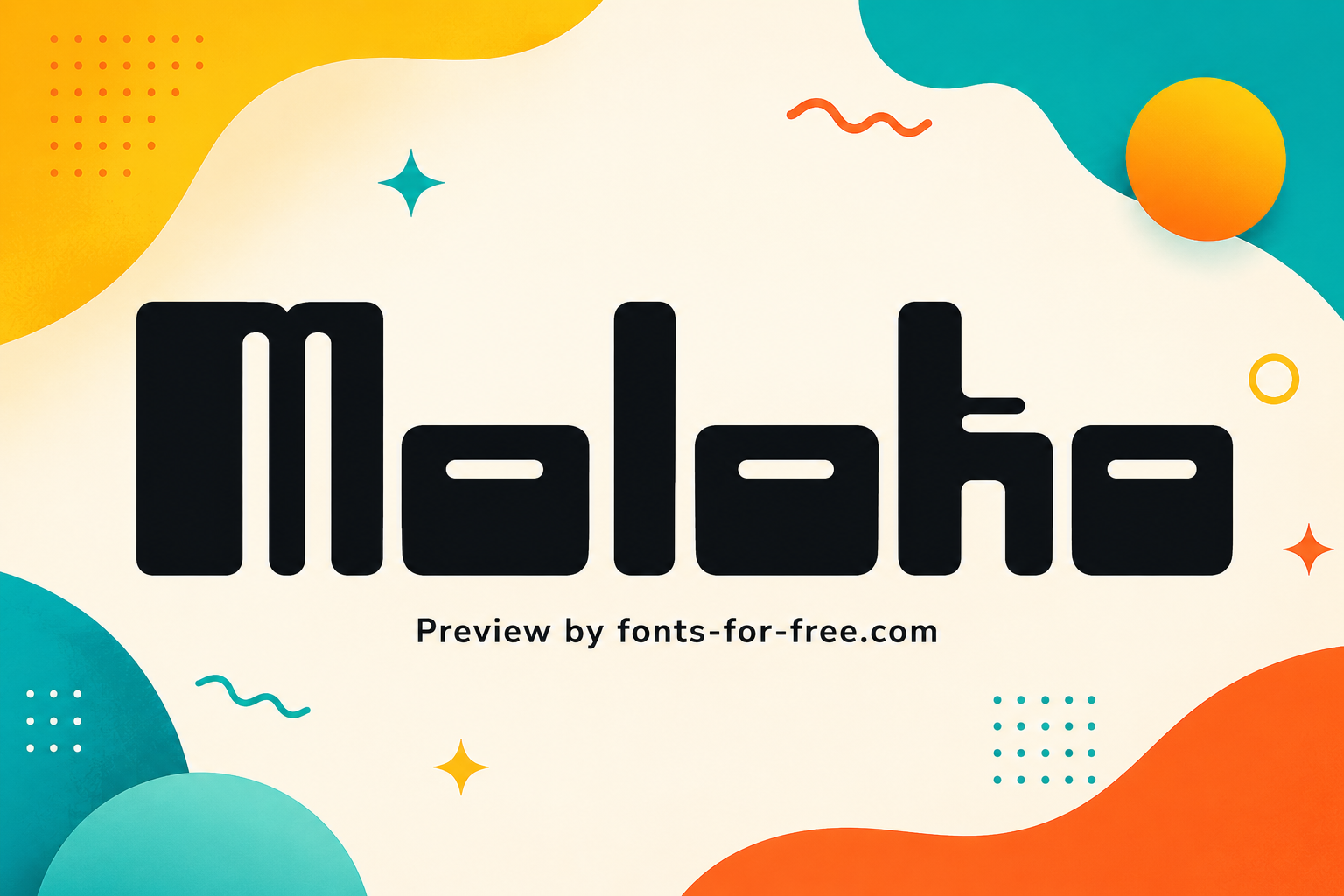
Moloko is a heavy geometric display sans serif created by cris_mayo and distributed under the SIL Open Font License 1.1. Its letters use thick, low-contrast strokes, rounded rectangular shapes, and compact counters, giving the typeface a bold modular rhythm. The forms are upright and simplified, with softened corners that keep the blocky structure from feeling rigid. Readability is strongest at large sizes, where the narrow inner spaces and distinctive horizontal cuts remain clear. Moloko suits short headlines, posters, labels, game graphics, music artwork, logo concepts, and other display settings that need a playful, futuristic, or chunky visual tone.